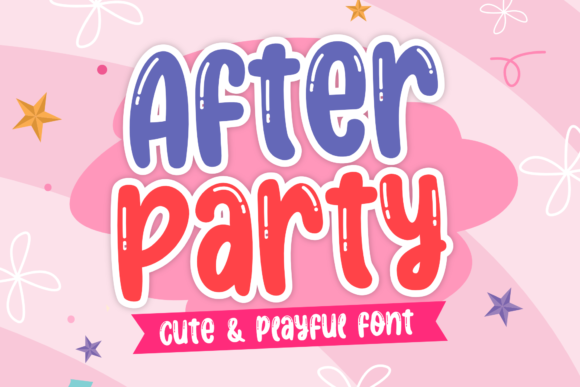
The Ultimate Party Starter: Discovering the Joy of After Party Font
I’ll never forget the time I was working on a project for a client’s birthday party invitation. I had the design concept nailed, but something was missing – the perfect font. I scoured the internet, tried out dozens of fonts, but none seemed to capture the playful, joyful vibe I was going for. That’s when I stumbled upon After Party Font, and it was love at first sight! 💕
After Party is an adorable and playful display font that instantly adds a joyful touch to any design. In this article, I’ll share my experience with this font, its features, and how to make the most of it in your designs.
An Honest Review of After Party Font
What I Love About After Party Font ✨
- Its playful, whimsical feel makes it perfect for designs that require a fun and lively touch 🎉
- The font is highly legible, even at smaller sizes, making it versatile for various design applications 📚
- After Party Font comes with a range of OpenType features, including glyphs and stylistic alternates, giving you plenty of creative options 🎨
- It’s incredibly easy to use, even for beginners, and works seamlessly with popular design software 👍
- While After Party Font is amazing for display text, it might not be the best choice for body text due to its playful nature ⚠️
- Some users might find the font a bit too bold for their taste, but this can be easily adjusted with font weights or combinations 🤔
The Story Behind After Party Font
While the true story behind After Party Font remains a mystery, it’s easy to imagine that its designer was inspired by the joy and excitement of a party 🎉. Perhaps they wanted to create a font that would bring people together and make them smile 😊. Whatever the inspiration, After Party Font is sure to bring a touch of happiness to your designs 🎊.
Q: What type of designs is After Party Font best suited for?
A: After Party Font is perfect for designs that require a playful and joyful touch, such as party invitations, children’s books, and craft projects 🎉